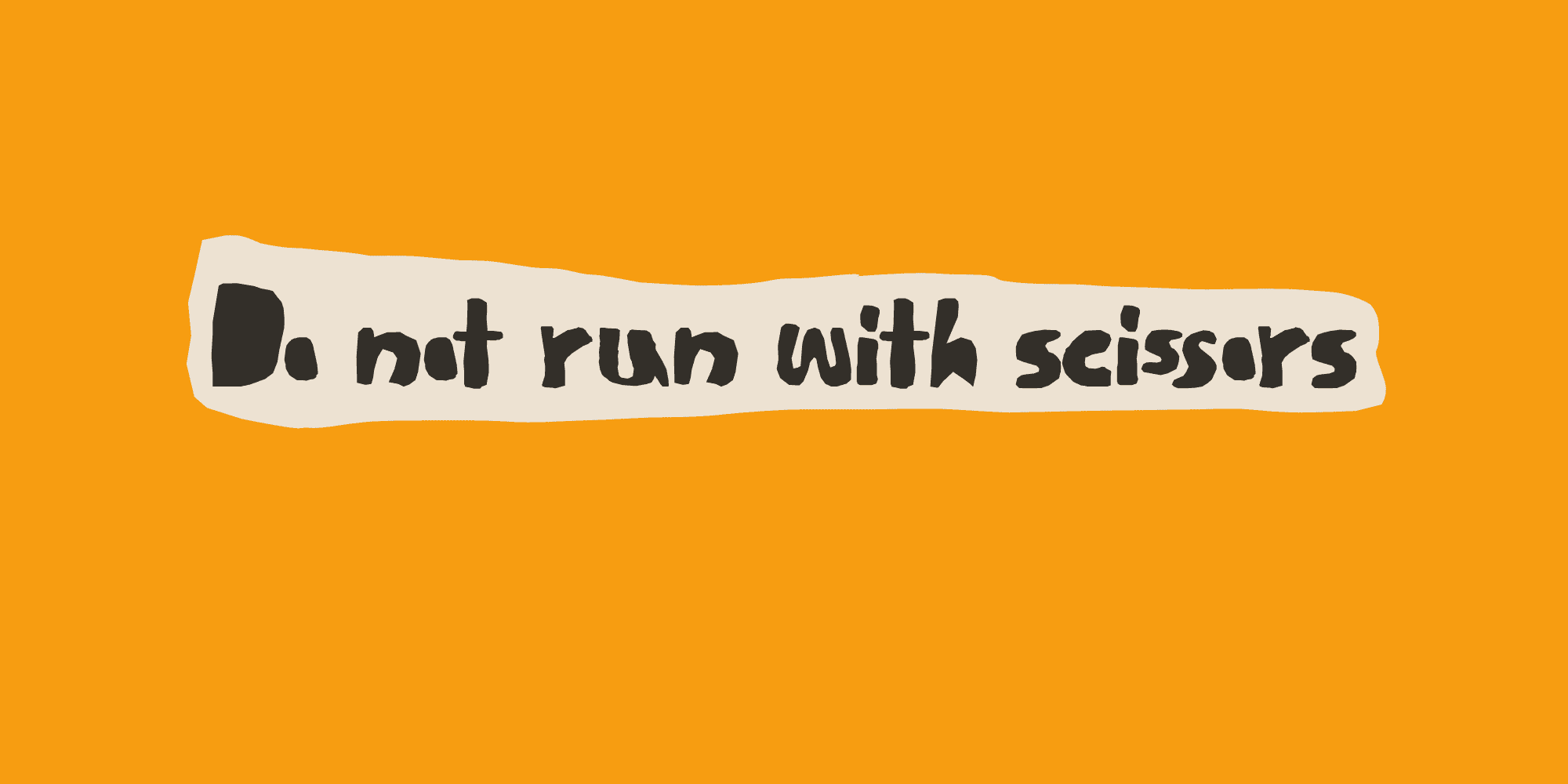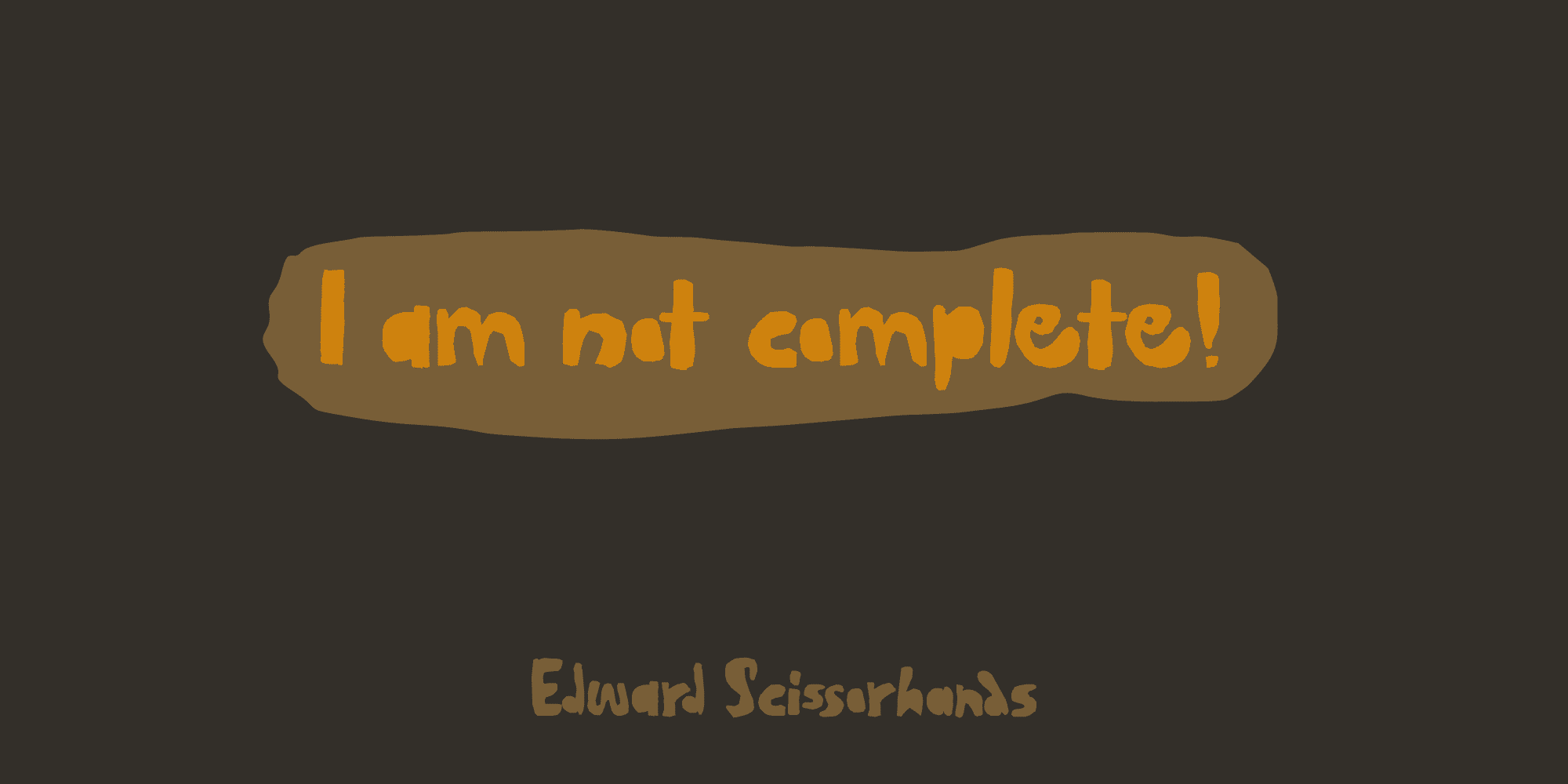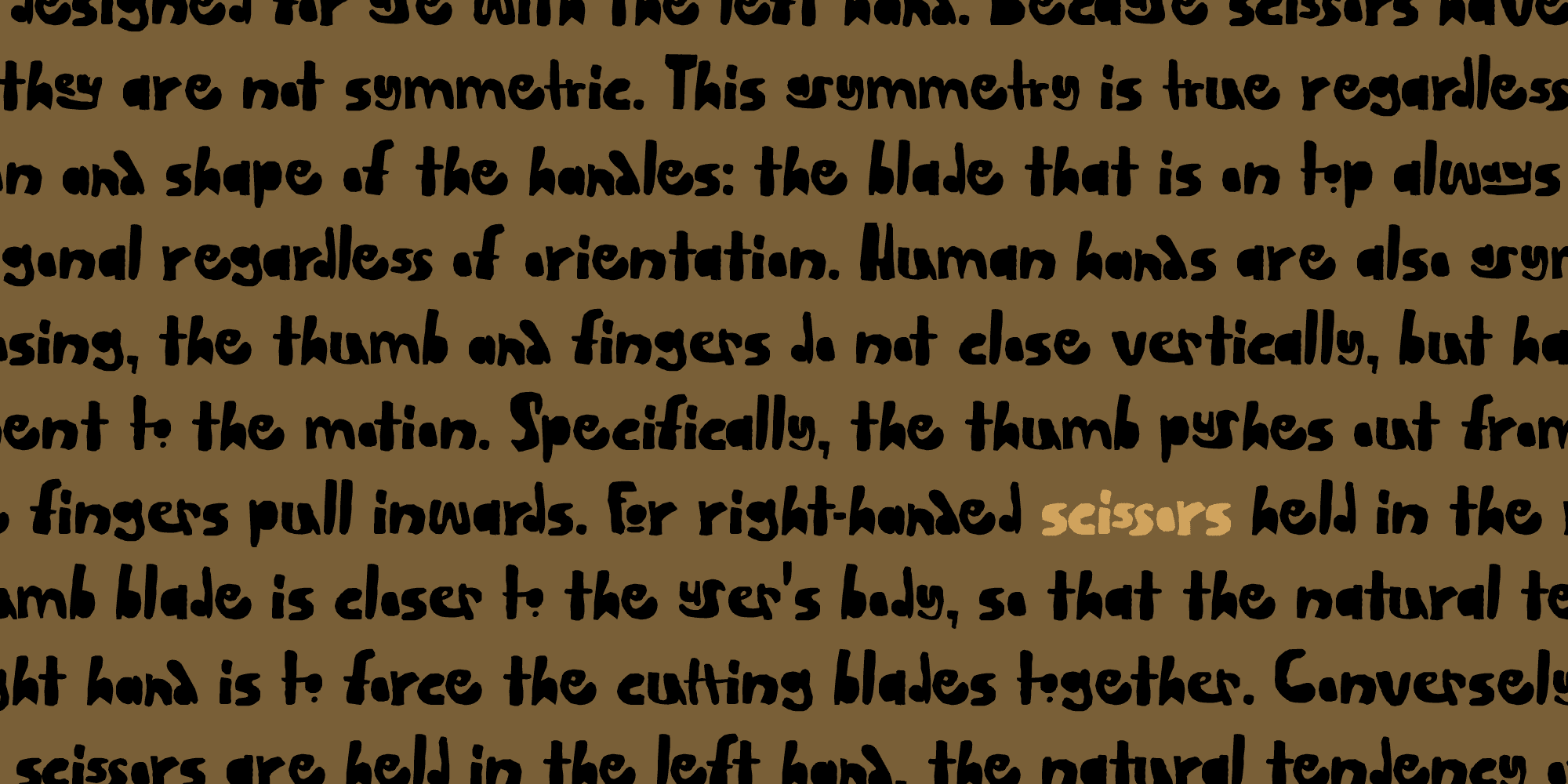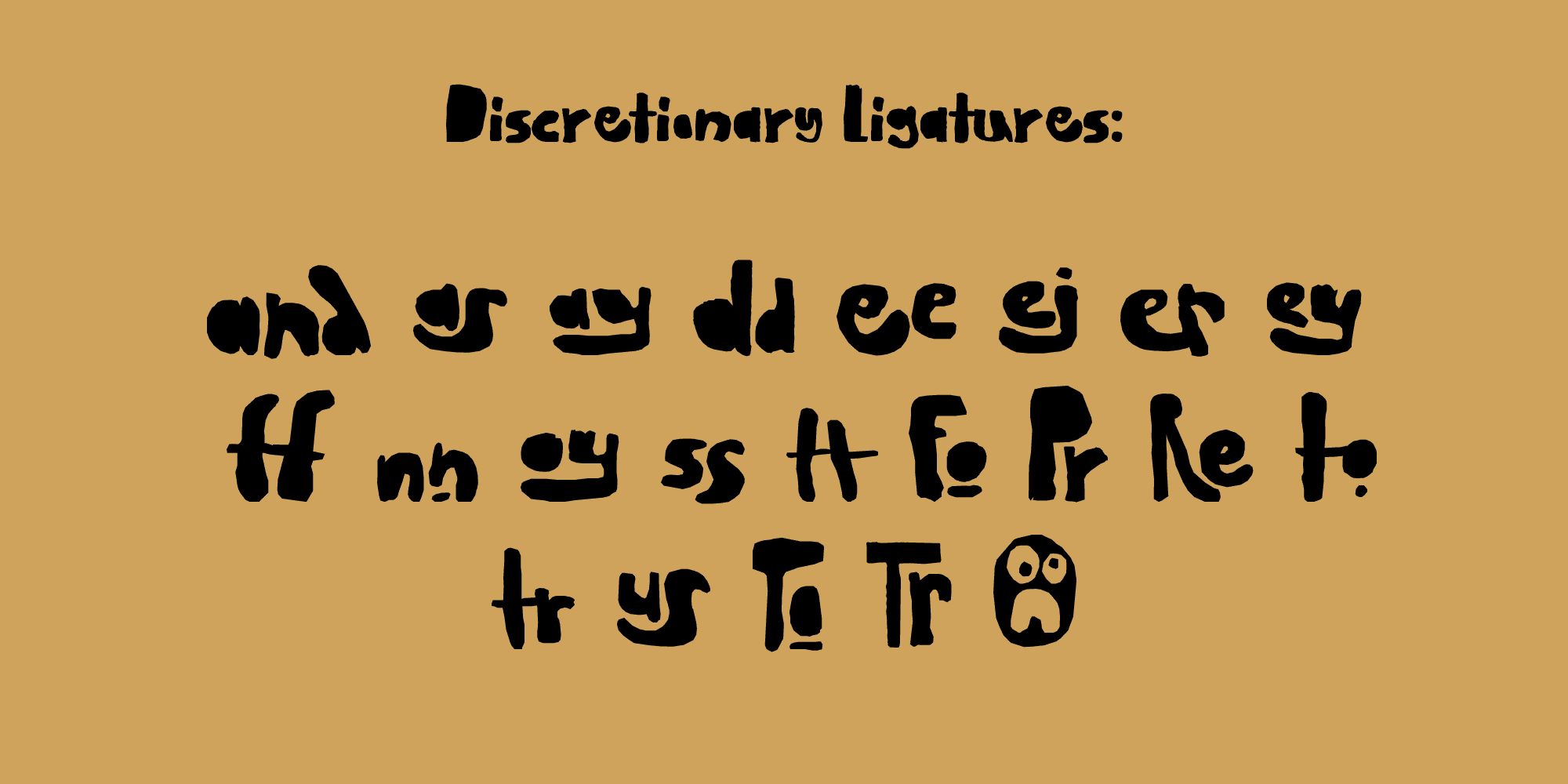
Scissor Madness Family (2 fonts)
So, in short, Scissor Madness was partly cut out by hand, partly computer made, but it is 100% fun to use! Scissor Madness comes with a bunch of very cute discretionary ligatures.